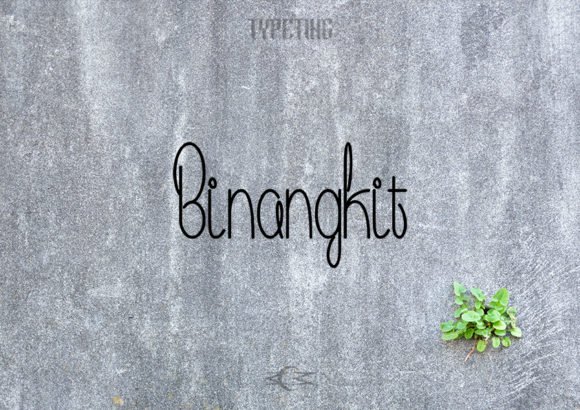
The Joy of Handwritten Charm: Discovering the Binangkit Font Have you ever been browsing through a vintage bookstore, flipping through old journals and notebooks, and suddenly, you come across a handwritten note that captures your heart? That’s exactly the feeling you’ll get when working with the Binangkit Font – a simple, cute, and fun handwritten…